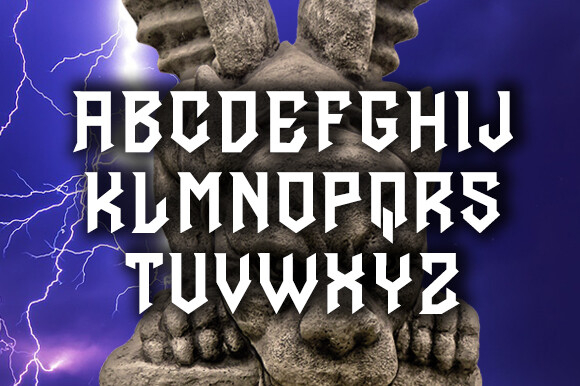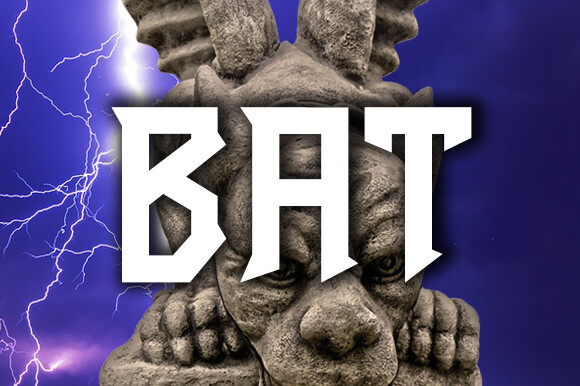
Gotham Font
About Gotham Font
Gotham is striking Gothic typeface that will look incredible on Your designs.
Use this font on flyers, t-shirts and posters.